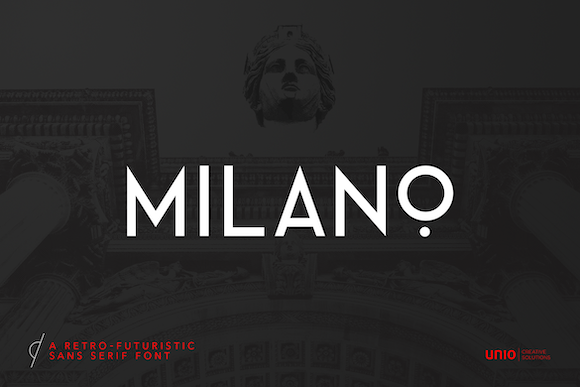
Introducing Milano Font - The Epitome of Modern Elegance and Playful Charm
Step into the realm of typography and let Milano Font cast its spell on your creative endeavors. This stunning display font, a brainchild of unio.creativesolutions, exudes a captivating aura of sophistication and lightheartedness, ready to elevate your designs to new heights of visual allure.
Milano's meticulously crafted characters dance across the screen, each letter a testament to the artistry and precision that went into its creation. Its clean lines and smooth curves lend an air of understated elegance, while its playful personality shines through in the intricate details and subtle flourishes.
Whether you're designing eye-catching posters, captivating social media graphics, or sleek website layouts, Milano Font is your trusted companion. Its versatility knows no bounds, effortlessly adapting to a myriad of design styles and themes. Unleash your creativity and let Milano's charm infuse your projects with a touch of sophistication and whimsy.
Dive into a world of endless possibilities with Milano Font. Its modern vibe and timeless appeal make it the perfect choice for designers seeking to make a lasting impression. From bold headlines that command attention to delicate body text that invites readers to delve deeper, Milano's versatility knows no bounds.
Experience the transformative power of Milano Font and watch your designs blossom into masterpieces of visual delight. Let its elegance elevate your brand's identity, its playfulness spark joy in your audience's hearts, and its modern aesthetic propel your creative vision into the future.
Embrace the allure of Milano Font and embark on a typographic journey where beauty and functionality harmoniously coexist. Its user-friendly nature makes it accessible to designers of all skill levels, while its captivating aesthetics are sure to leave a lasting impression on your audience.